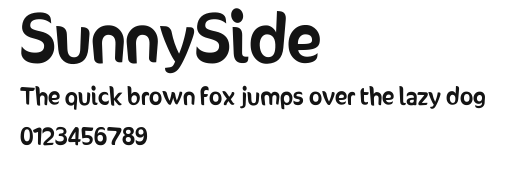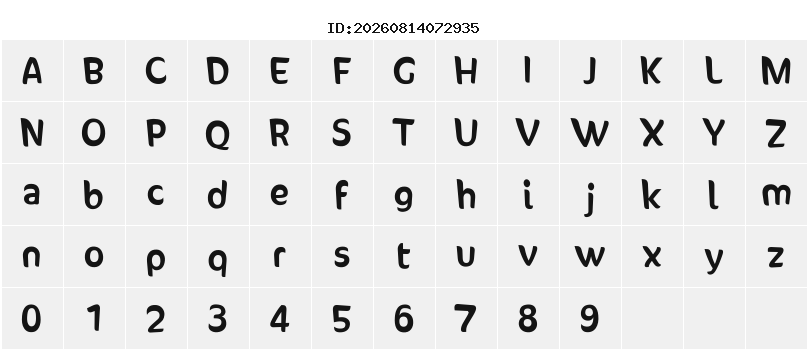
SunnySide Preview
• Font Name: SunnySide
• Font ID: SunnySide
• Full Font Name: SunnySide
• PostScript Name: SunnySide
About SunnySide.ttf
SunnySide.ttf is a modern, elegant sans-serif font designed for ultimate readability and visual harmony. Perfect for branding, headlines, web design, and print materials.